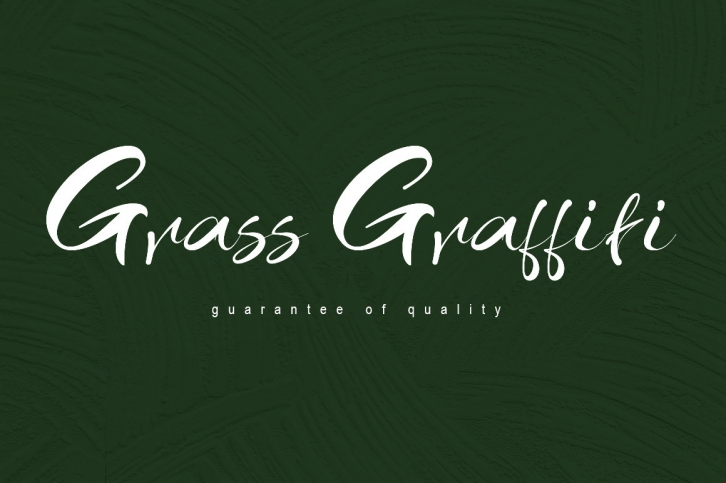
Grass Graffiti is a chic handwritten font. It is made for packaging products, invitations, writing on brochures, event posters, shirt screen printing, book covers and all aspects that require good quality fonts.